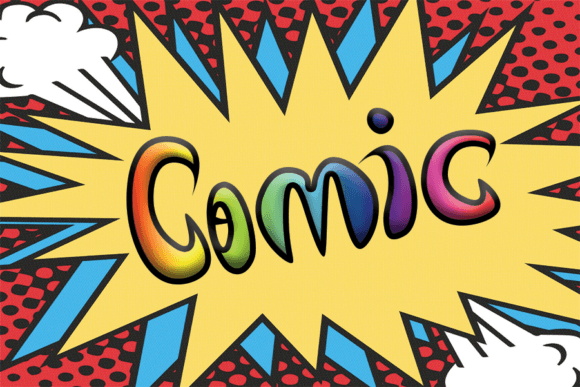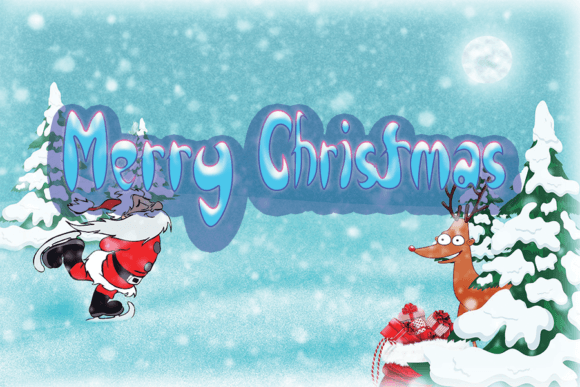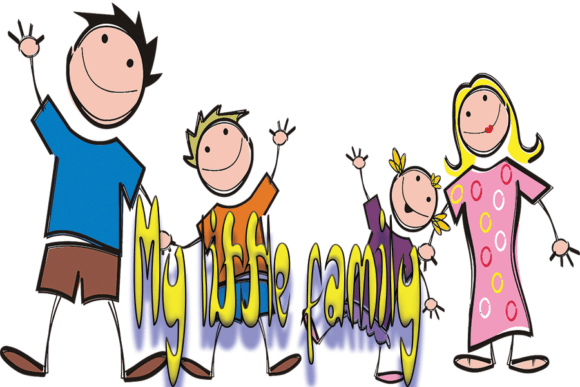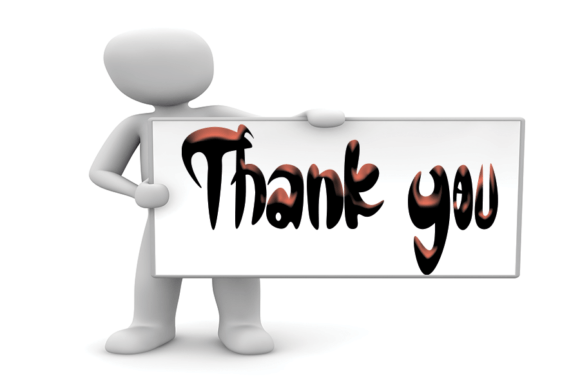
Unlocking Creativity with the Cartoon Font
Do you remember the thrill of rummaging through your mom’s old scrapbook or craft box, discovering a treasure trove of colorful stickers, glitter, and handwritten notes? That same spark of creativity can be ignited with the help of the Cartoon Font, a modern and playful handwritten script font that’s perfect for crafters and designers alike.
The Cartoon Font is designed to add a touch of whimsy to any project, making it a valuable tool for designers looking to inject some personality into their work. Whether you’re creating digital art, designing custom stickers, or crafting handmade cards, this font is sure to bring a smile to your face and a dash of playfulness to your projects. With its compatibility with tools like Photoshop and Silhouette design studio, the Cartoon Font is an essential addition to any creative’s toolkit.
Carter Font Key Features
- Unique Characteristics: The Carter Font features a playful, hand-drawn style with rounded edges and irregular shapes, giving it a distinctive and whimsical look.
Cartoon Font Review
Overall, I think the Cartoon Font is a fun and playful choice for certain projects. Here are some things that work well:
- ✨ The bold and colorful nature of the font makes it perfect for kids’ materials, social media graphics, and other applications where you want to grab the user’s attention.
- ✨ The wide range of styles and weights available makes it easy to customize the font to fit your specific needs.
- ✨ The font is highly legible, even at smaller sizes, making it suitable for a variety of applications.
- ⚠️ The font may not be suitable for formal or professional applications, as it can come across as immature or unprofessional.
- ⚠️ The font’s boldness and playfulness can also make it difficult to read in certain contexts, such as in dense blocks of text.
- ⚠️ The font may not be suitable for applications where a more serious or formal tone is required.
Overall, I think the Cartoon Font is a great choice for projects that require a fun and playful tone. However, it’s not the best choice for every project, and you should carefully consider the context and audience before using it.
Tips for Getting the Most Out of Cartoon Font
Use Cartoon Font for playful and creative projects, such as children’s book covers, greeting cards, and social media graphics. Experiment with different font sizes and colors to add visual interest to your design.
Cartoon Font is commonly used for:
– Children’s book covers
– Greeting cards
– Advertising for kids’ products or services
Alternatives to Cartoon Font for Designers
Comic Sans
Comic Sans is a casual, informal font that is often used in children’s materials and friendly communications. It is more cursive and rounded than Cartoon Font, making it suitable for projects that require a more playful tone. However, it has been widely criticized for its overuse and lack of sophistication.
Comparison to Cartoon Font: While both fonts are playful, Comic Sans is more cursive and less bold than Cartoon Font.
Pacifico is a modern, elegant script font that is often used in branding and marketing materials. It has a more refined and sophisticated look compared to Cartoon Font, making it suitable for projects that require a touch of luxury. However, it may not be as attention-grabbing as Cartoon Font.